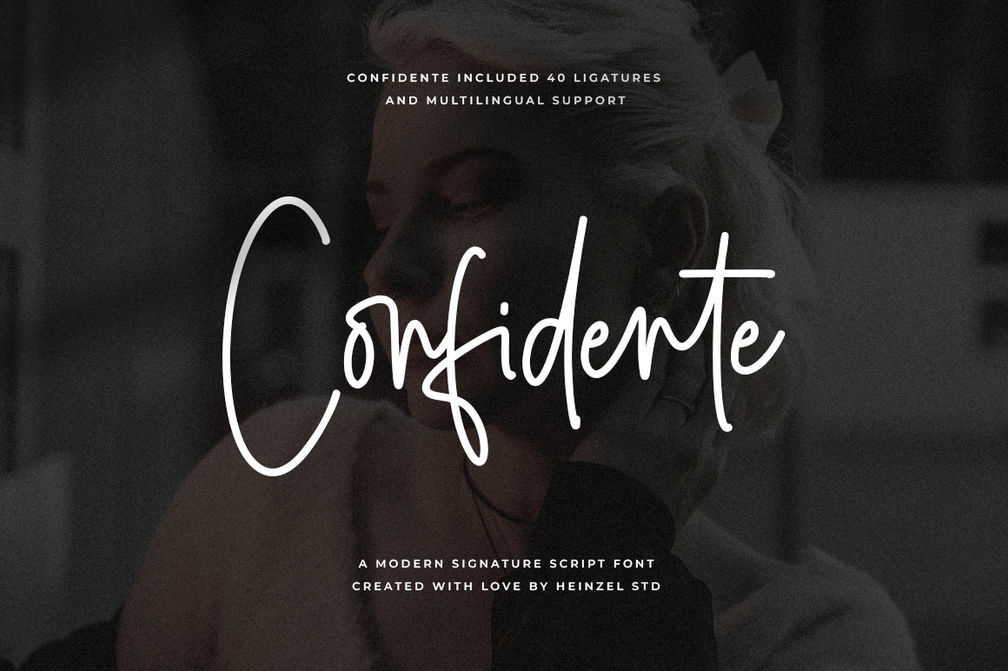
- Confidente Script Font
Confidente Script Font: Elevate Your Designs with Signature Elegance
Introducing Confidente Script Font, a stunning typeface that exudes elegance and captures the essence of a handwritten signature. With its graceful and flowing letterforms, Confidente Script adds a touch of sophistication to your projects, making it perfect for wedding invitations, thank you cards, quotes, greeting cards, logos, business cards and more.
Confidente Script Font is meticulously crafted to ensure each character is perfectly balanced, harmonious, and legible. Its smooth and fluid strokes replicate the beauty of handwritten, creating an authentic and personalized feel.
This versatile typeface includes a wide range of ligatures and alternate characters, providing endless possibilities for customization. With its OpenType features, you can effortlessly create unique combinations that reflect your creative vision and set your designs apart from the rest.
Elevate your designs with the signature elegance of Confidente Script Font. Let its refined and sophisticated charm captivate your audience and make a lasting impact. Embrace the versatility and convenience of this digital font to create memorable and visually stunning designs.
Unlock the full potential of your creativity with Confidente Script Font. Experience the power of a signature-style typeface that adds a touch of class and elegance to every project. Stand out from the crowd and leave a lasting impression with Confidente Script Font.
Confidente Features :
- Uppercase and Lowercase
- Numerials and Punctuations
- Ligatures
- Multilingual Support : ÁÂÃÄÅÆÇÈÉÊËÌÍÎÏÐÑÒÓÔÕÖØÙÚÛÜÝÞß àáâãäåæçèéêëìíîïðñòóôõöøùúûüýÿþ
- Easy To Use